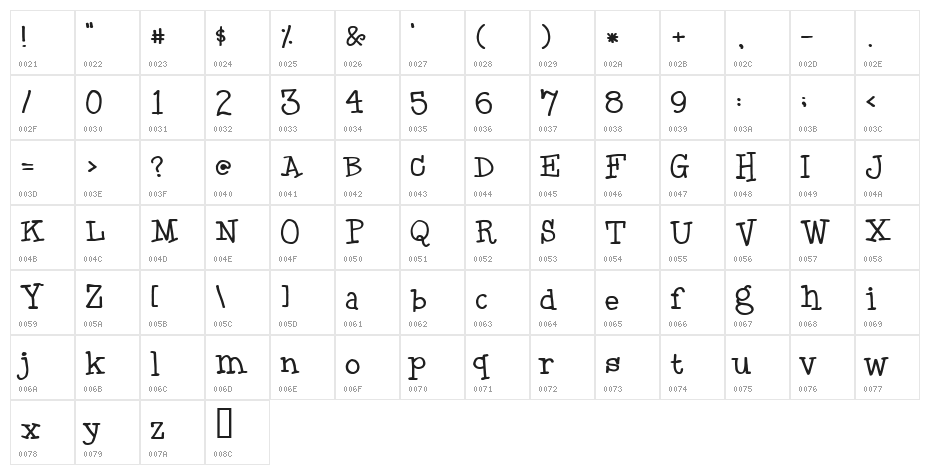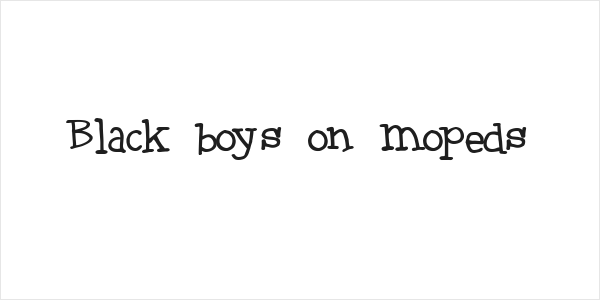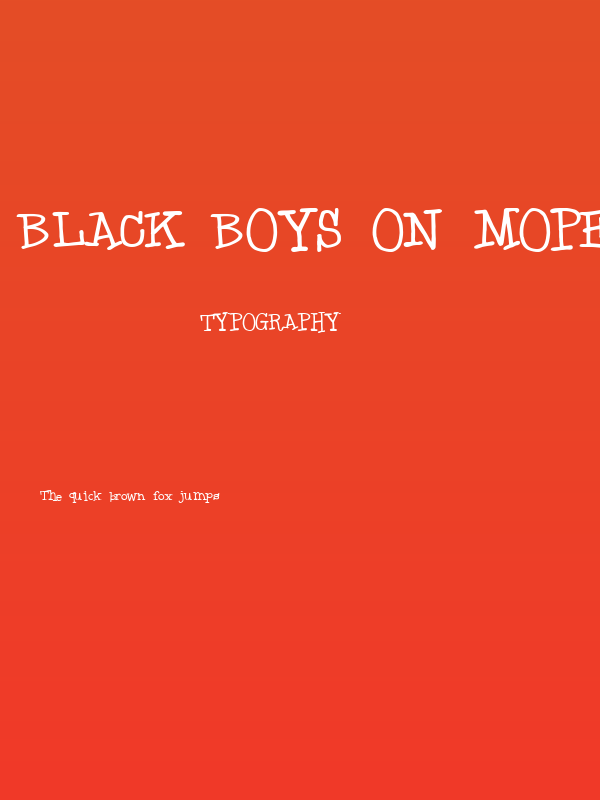
Black boys on mopeds Font
Black boys on mopeds Description
This playful and whimsical font features a hand-drawn, cartoonish style with irregular strokes and a casual feel. The uppercase and lowercase letters are bold and rounded, giving a friendly and approachable appearance. The numbers and special characters maintain the same playful aesthetic, making it suitable for creative and informal projects. The font's unique charm is enhanced by its uneven baseline and varying stroke widths, which add a dynamic and lively touch. It is perfect for projects that require a fun and engaging look, such as children's books, posters, or playful branding.
| Proposed Projects | Ideal for children's books, playful branding, posters, and creative projects. |